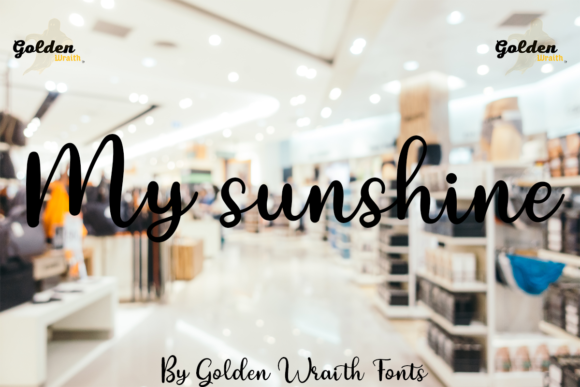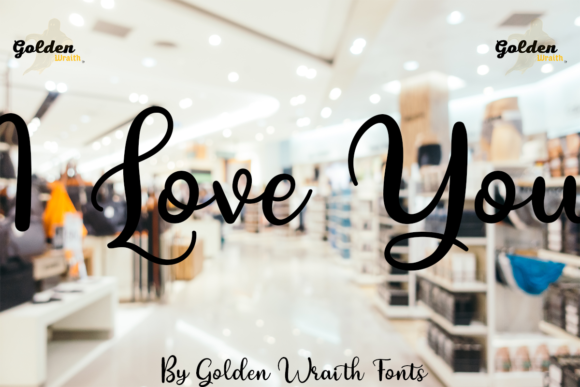
The Perfect Script for Love and Luxury
Have you ever stared at a blank page, searching for the perfect words to express your emotions? Perhaps it was a heartfelt love letter, a wedding invitation, or a birthday message. Whatever the occasion, we’ve all been there – hoping to convey our deepest feelings in the most beautiful way possible. This is where the right font can make all the difference, and for designers, the I Love You Font is a game-changer.
With its delicate, elegant, and flowing handwritten style, the I Love You Font is a versatile choice that can elevate any design. Its beautiful and well-balanced characters make it perfect for a wide range of projects, from romantic gestures to high-end branding. And with its PUA encoding, designers can easily access all of the glyphs and swashes, taking their creations to the next level.
I Love You Font Key Features
- Font Family: A unique, cursive font designed to convey affection and love.
I Love You Font Review
When I first stumbled upon the I Love You Font, I couldn’t help but feel a mix of emotions – from the initial excitement to a pinch of skepticism. But after diving deeper, I must say that it’s a unique and quirky font that can add a touch of personality to your designs.
- ✨ The font’s bold and playful style makes it perfect for designs that need a bit of whimsy and fun.
- ✨ It’s great for creating eye-catching headlines, titles, and even social media graphics.
- ✨ The font’s versatility allows it to be used in a variety of contexts, from fashion to food and even technology.
- ⚠️ The font may be too over-the-top for more professional or corporate designs.
- ⚠️ It may not be the best choice for designs where you need a lot of fine details or intricate typography.
- ⚠️ Some users may find the font too cheesy or cliché, especially when used in certain contexts.
The I Love You Font is a fun and quirky addition to any designer’s toolkit. While it may not be the most versatile or sophisticated font, it’s perfect for designs that need a bit of personality and flair. Just be sure to use it wisely and in the right context to get the most out of it.
Tips for Getting the Most Out of the I Love You Font
Here are a few tips to help you get the most out of the I Love You Font:
- Use the font in combination with bold or italic text for emphasis.
- Experiment with different font sizes and colors to create a visually appealing design.
- Use the font in conjunction with other design elements, such as images or shapes, to create a cohesive look.
The I Love You Font is commonly used in:
- Valentine’s Day cards and gifts.
- Wedding invitations and decorations.
- Soft pastel colors to evoke a sense of warmth and nostalgia
- Photos of special moments, such as anniversaries or birthdays
- Gold or rose gold accents to add a touch of luxury and romance
- Soft watercolor illustrations or floral patterns to add a touch of whimsy and romance
- Luxurious paper textures or metallic foil stamping to add depth and sophistication
- Personalized monograms or custom illustrations to reflect the couple’s style